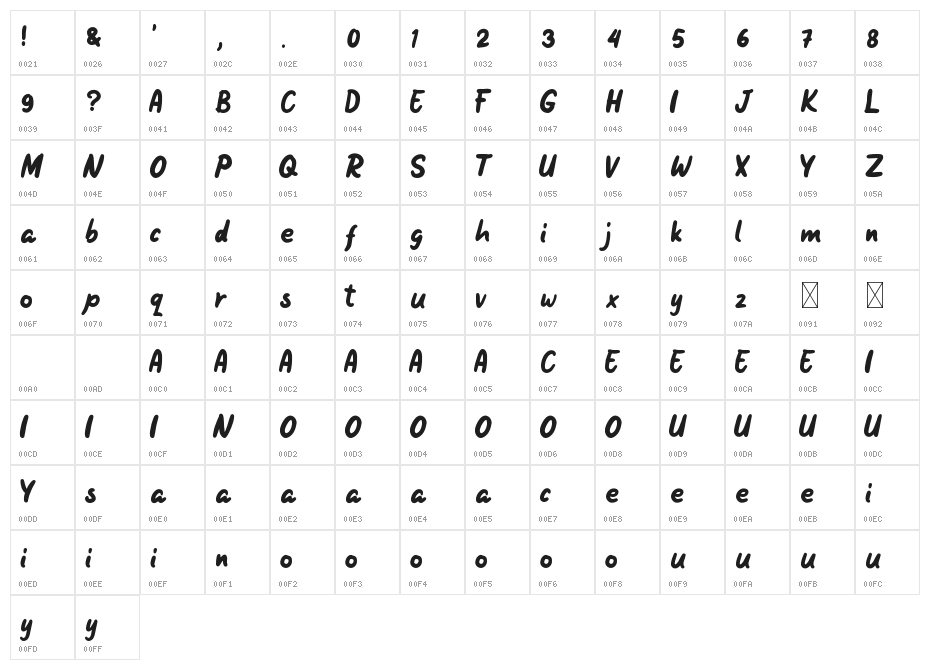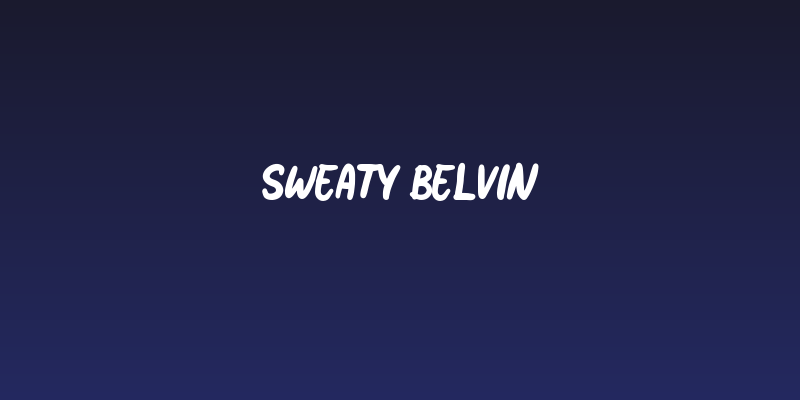
Sweaty Belvin Font
Sweaty Belvin Description
This font exhibits a playful and energetic style, characterized by its bold, rounded strokes and slightly irregular shapes that give it a handwritten feel. The letters are closely spaced, enhancing its dynamic appearance. The uppercase letters are bold and prominent, while the lowercase letters maintain a consistent flow, adding to its casual and approachable vibe. The numerals are well-balanced, matching the overall style of the alphabet. Special characters are included, maintaining the font's cohesive look. This font is ideal for projects that require a friendly and informal touch.
| Use Case | Logos, Headlines, Informal Text |
| Proposed Projects | Ideal for children's books, playful branding, casual invitations, and social media graphics. |